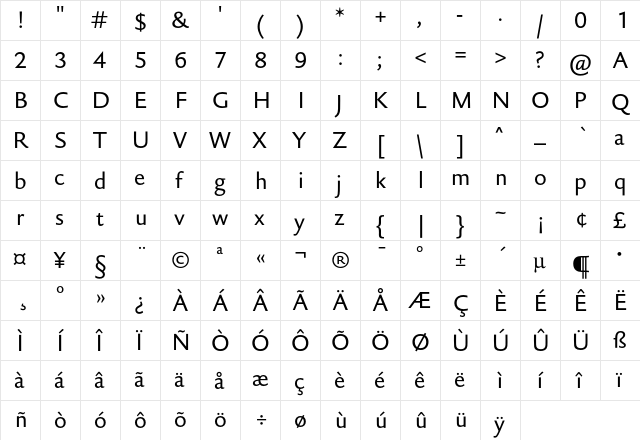
DTL Haarlemmer D Sans Regular
Design Context for DTL Haarlemmer Typeface
DTL Haarlemmer takes a measured approach to typography — its balanced proportions and neutral character make it a reliable workhorse for both digital and print work.